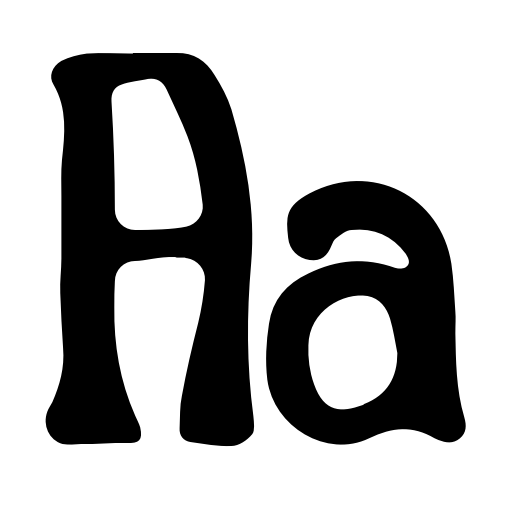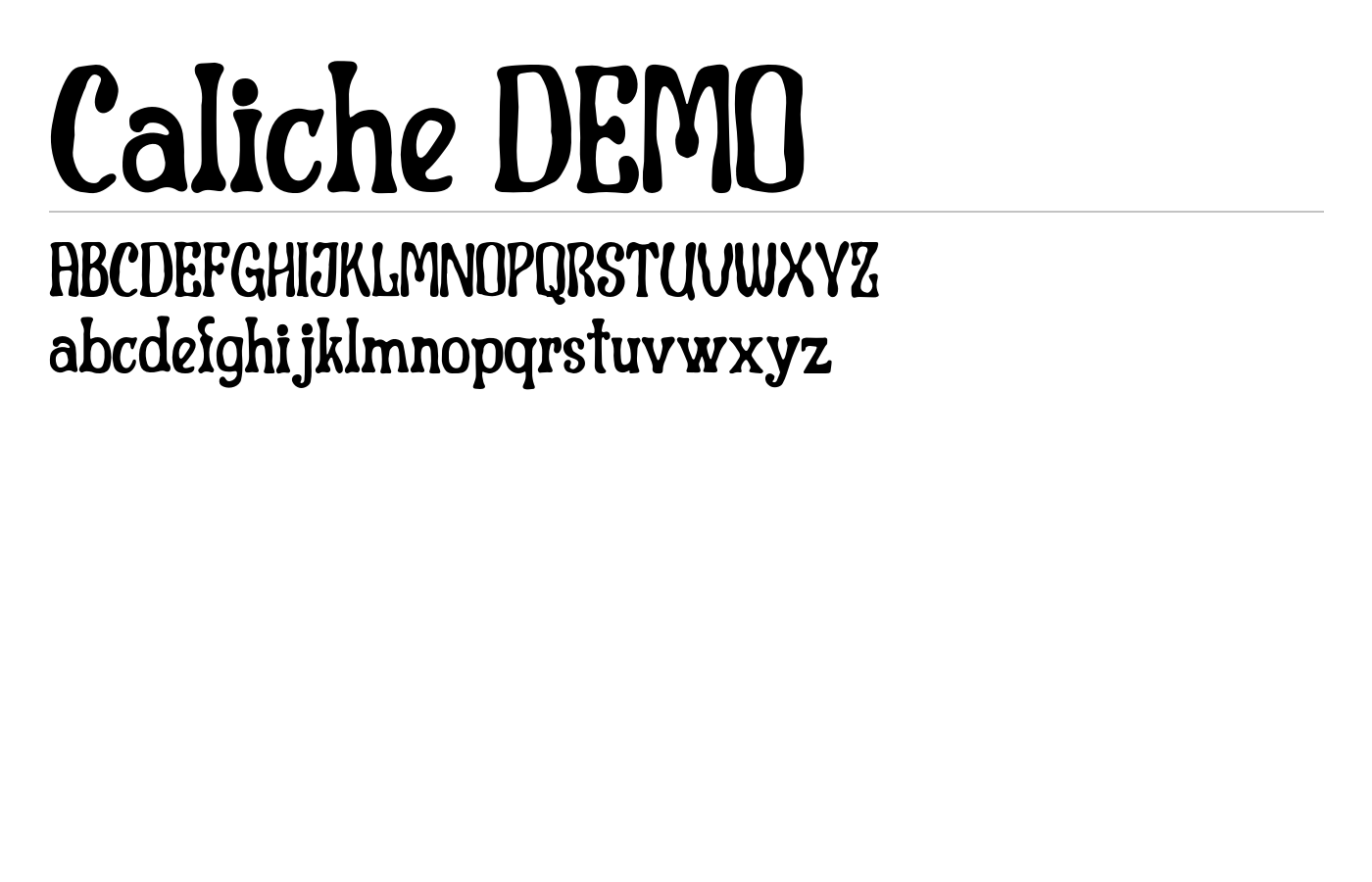
Caliche DEMO is a playful serif font with a hand-crafted feel, featuring irregular, rounded strokes and a moderate contrast that gives it a quirky, artistic character. Its tall, narrow letterforms with distinctive details like the curvy ‘Q’ tail and unique serif shapes make it ideal for creative projects, logos, and headlines where a fun yet slightly vintage vibe is desired. This font adds personality and charm, making it perfect for branding, posters, and editorial designs that stand out with a handcrafted touch.
Caliche DEMO Font